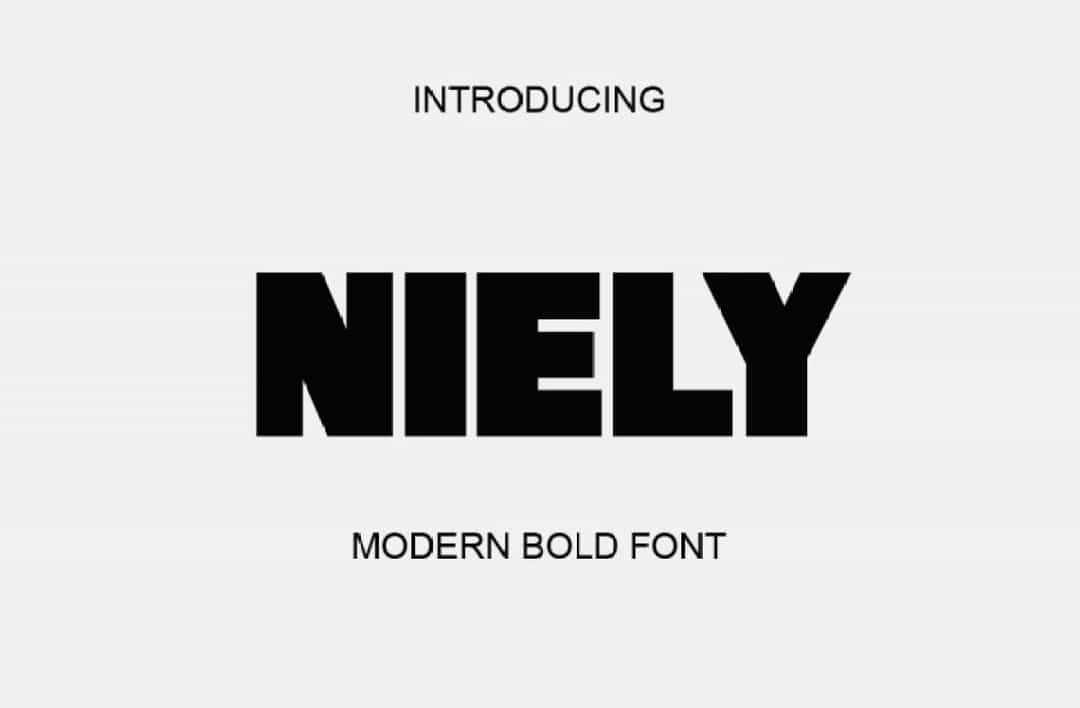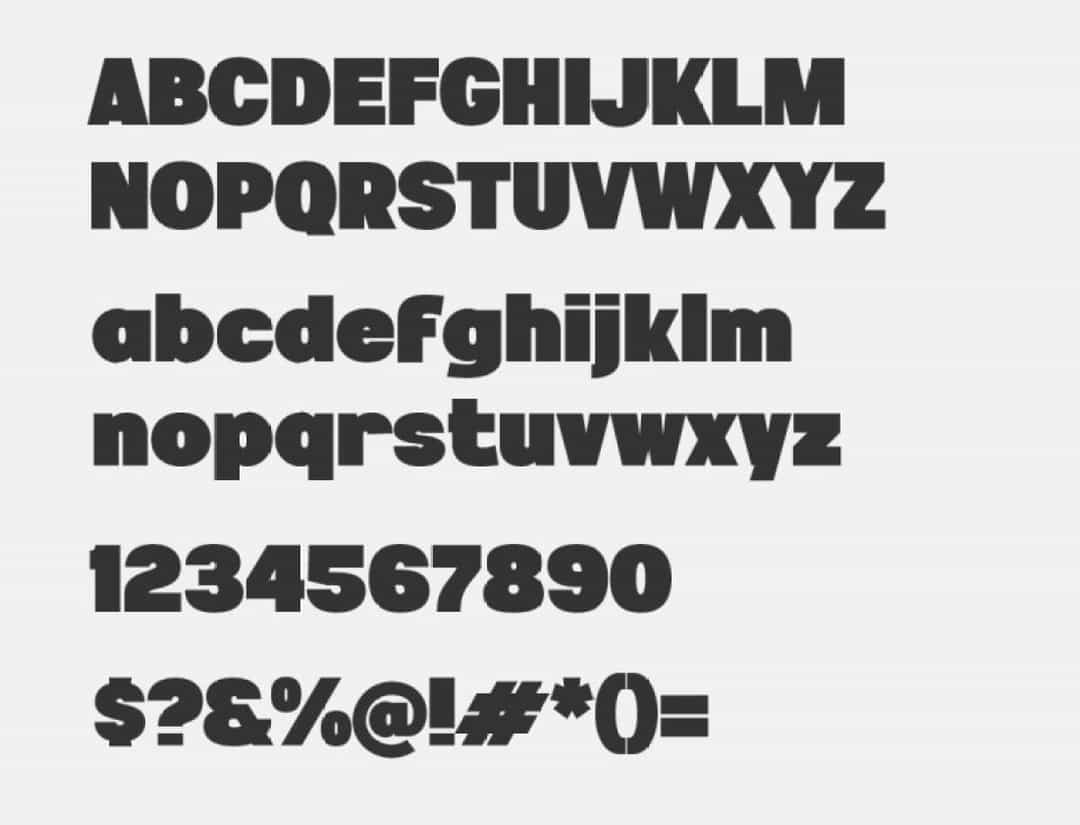
Niely Font is a display font that is sans-serif style and has a modern and bold appearance with its characters. Best for headlines, logos and any design where the text is the focus. This particular font is rather practical and aesthetic at the same time, which is why it is perfect for various applications.